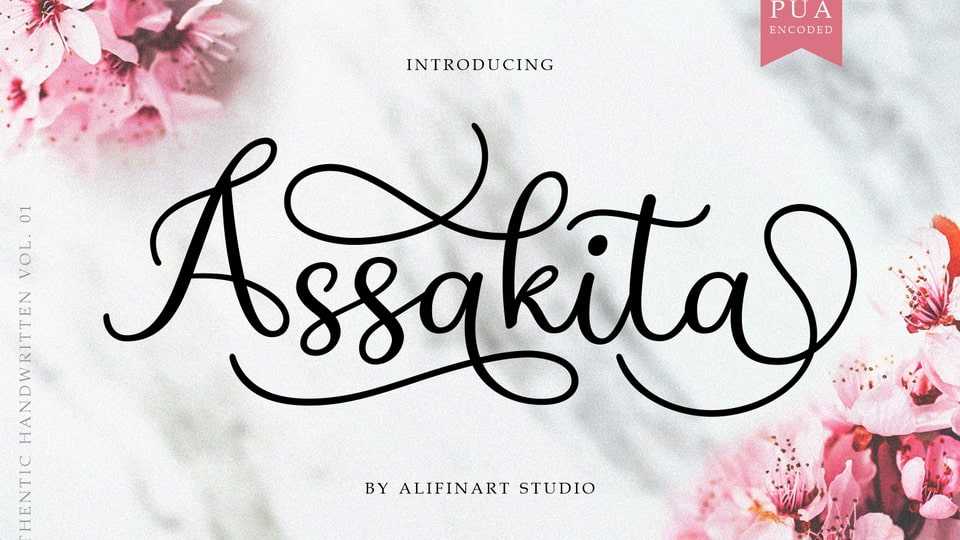
Download Assakita font, a script that simplifies elegance into one truly outstanding handwritten typeface. Assakita maintains its classy calligraphic influences while feeling contemporary and fresh.
Designer: Alifinart Studio